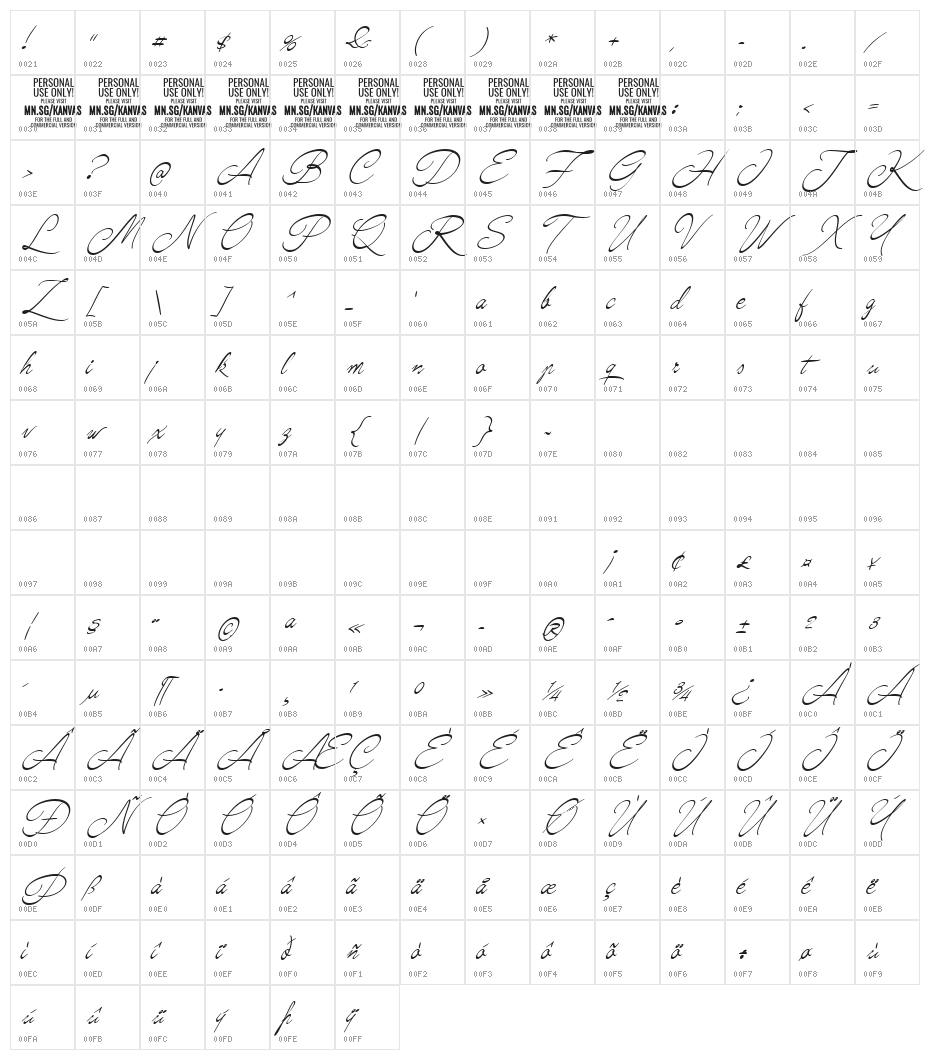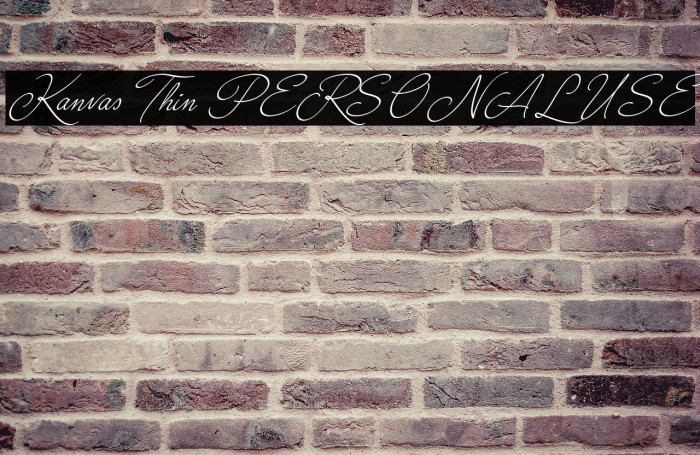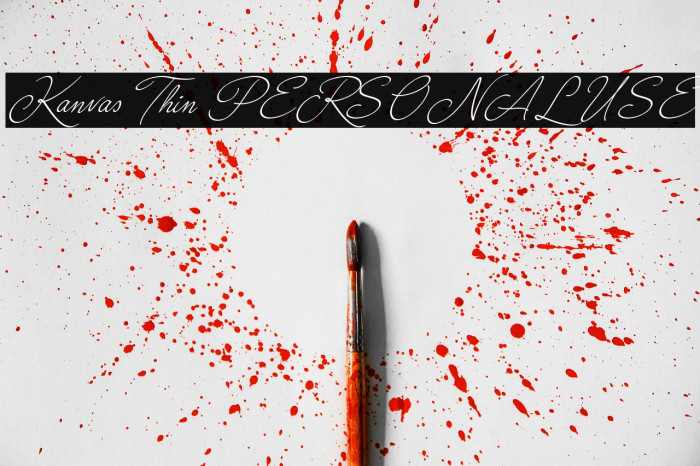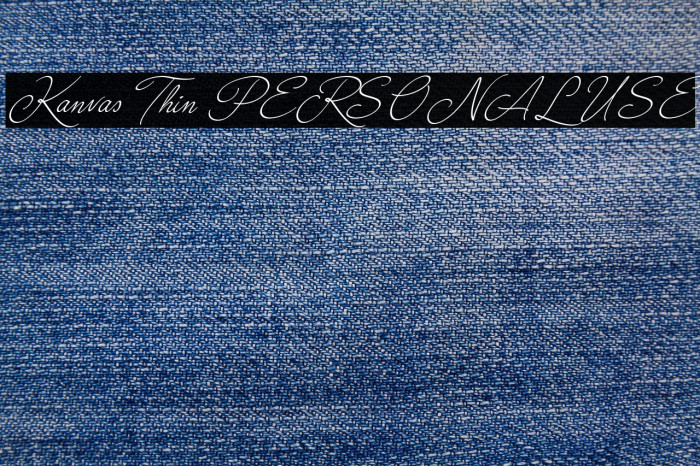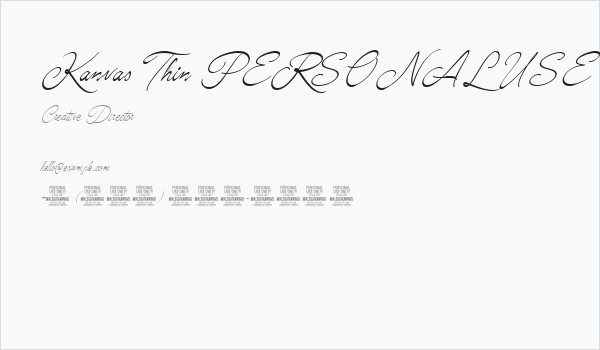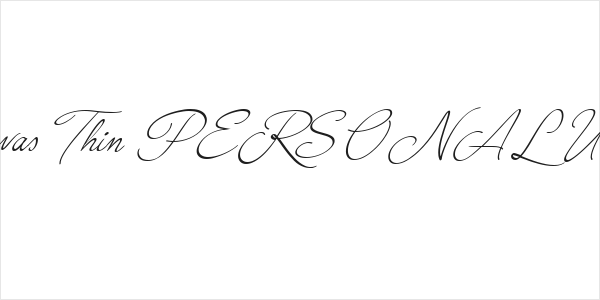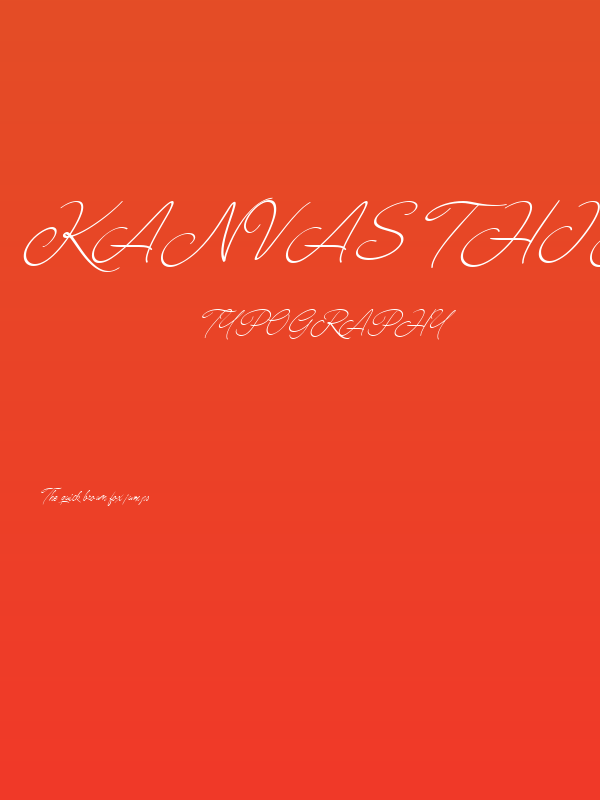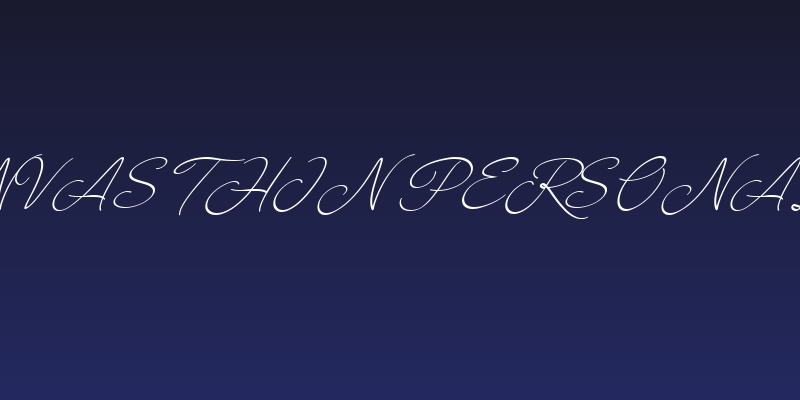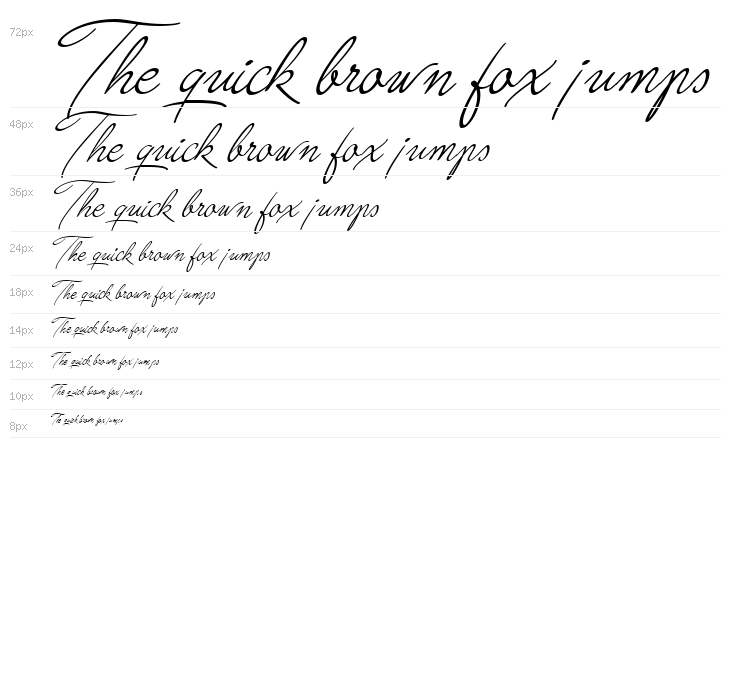
Kanvas Thin PERSONAL USE Font
Kanvas Thin PERSONAL USE Description
This elegant script font features a delicate and flowing design, characterized by its thin, graceful strokes and fluid connections between letters. The uppercase letters exhibit a sophisticated flair with sweeping curves and loops, while the lowercase letters maintain a consistent, smooth flow that enhances readability. The numerals and special characters are crafted with the same attention to detail, ensuring a cohesive appearance across all elements. This font exudes a sense of elegance and refinement, making it ideal for projects that require a touch of sophistication.